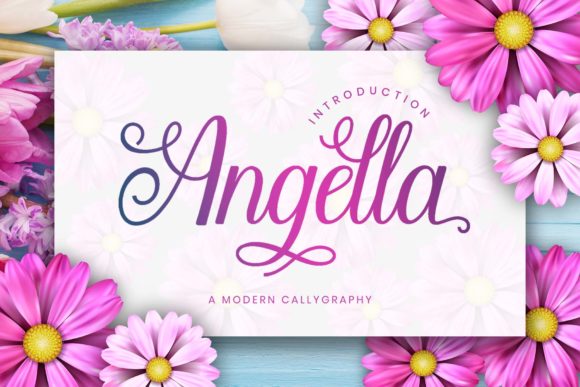
Are you looking for the perfect font for your wedding invite? Look no further than Angella Font, created by Graphicxell. This magical handwritten script font exudes elegance and charm, making it the ideal choice for your special day.
Angella Font combines timeless beauty with authentic calligraphy, resulting in a stunningly classic style that remains approachable and friendly. The handwritten quality adds a personal touch to your designs, creating an unforgettable impression on your guests.
But Angella Font is not just limited to wedding invitations. It's an incredibly versatile font that can be used for any project that requires a touch of elegance and sophistication. Use it for branding, packaging, signage, or any other design that needs to stand out.
One of the best things about Angella Font is its versatility. Whether you're designing for a modern or traditional aesthetic, this font can seamlessly integrate with any style. Its friendly, approachable feel makes it perfect for creating warm and inviting designs that connect with your audience.
If you want to elevate your designs to the next level, Angella Font is the perfect tool. Its timeless beauty and handwritten charm will captivate your audience and create a lasting impression. So why settle for a boring font when you can have Angella Font?